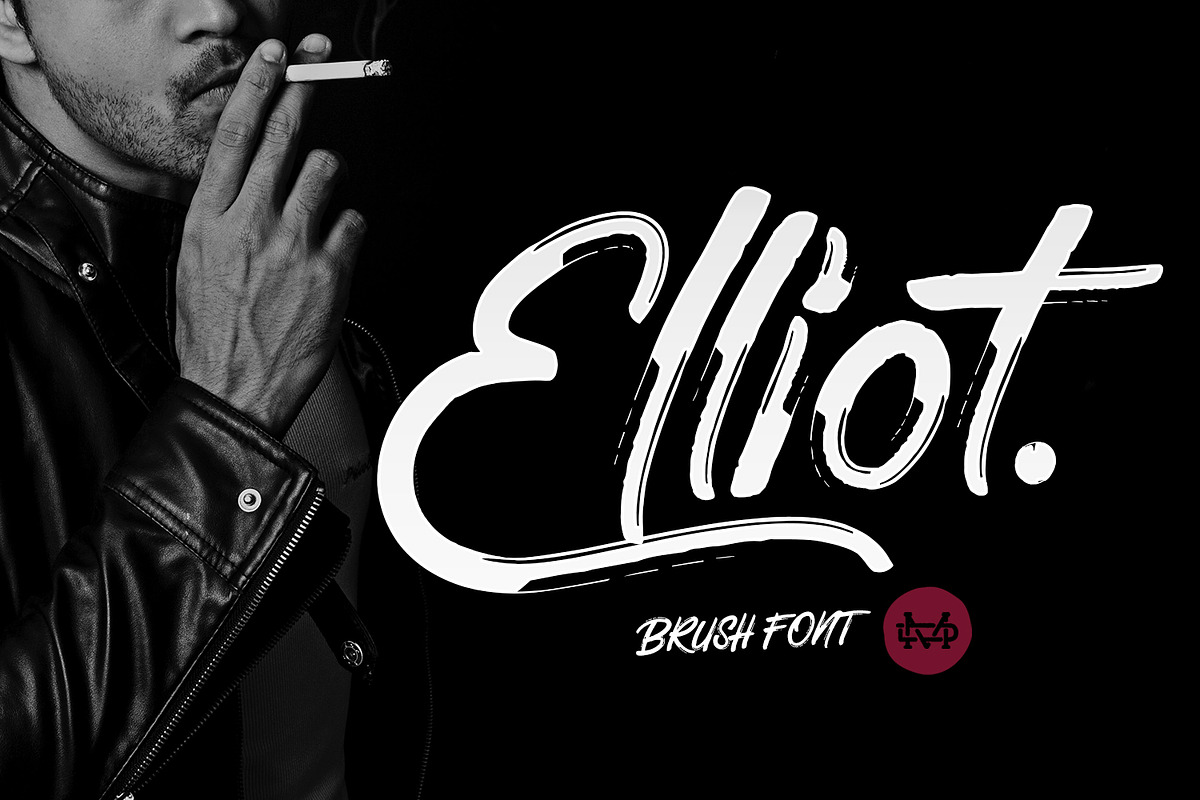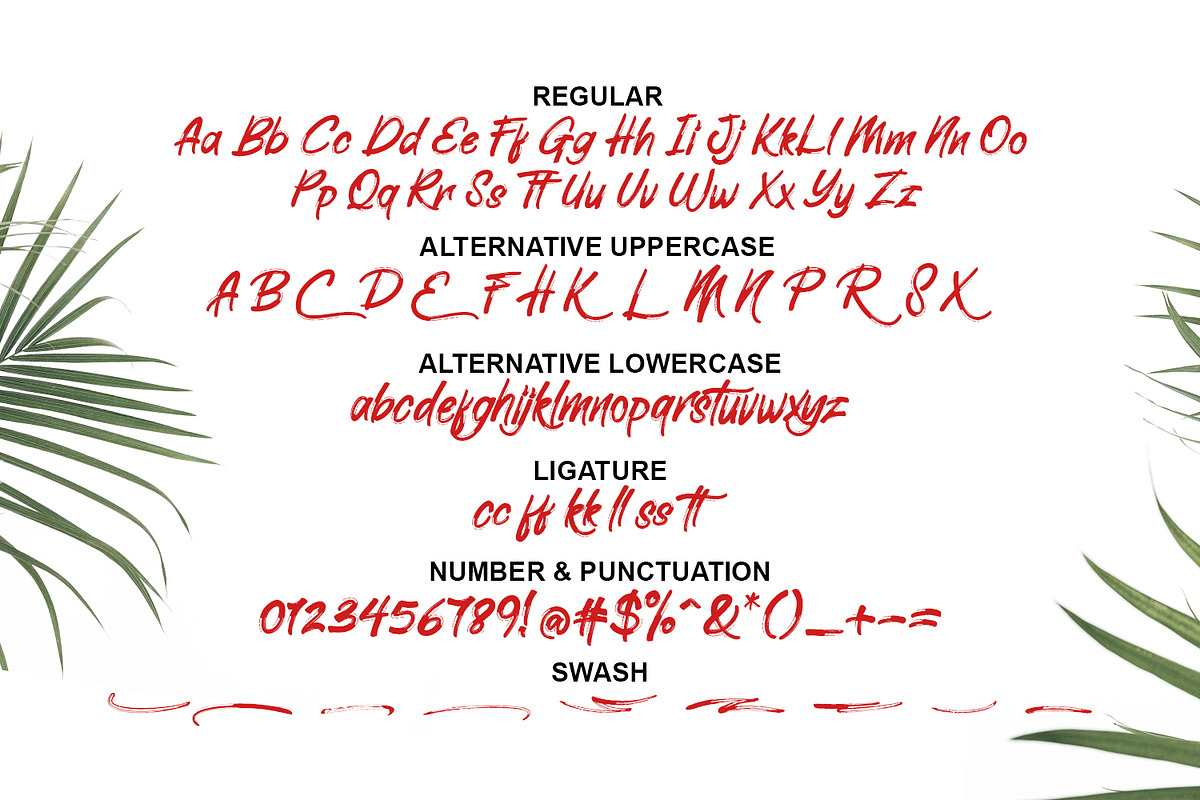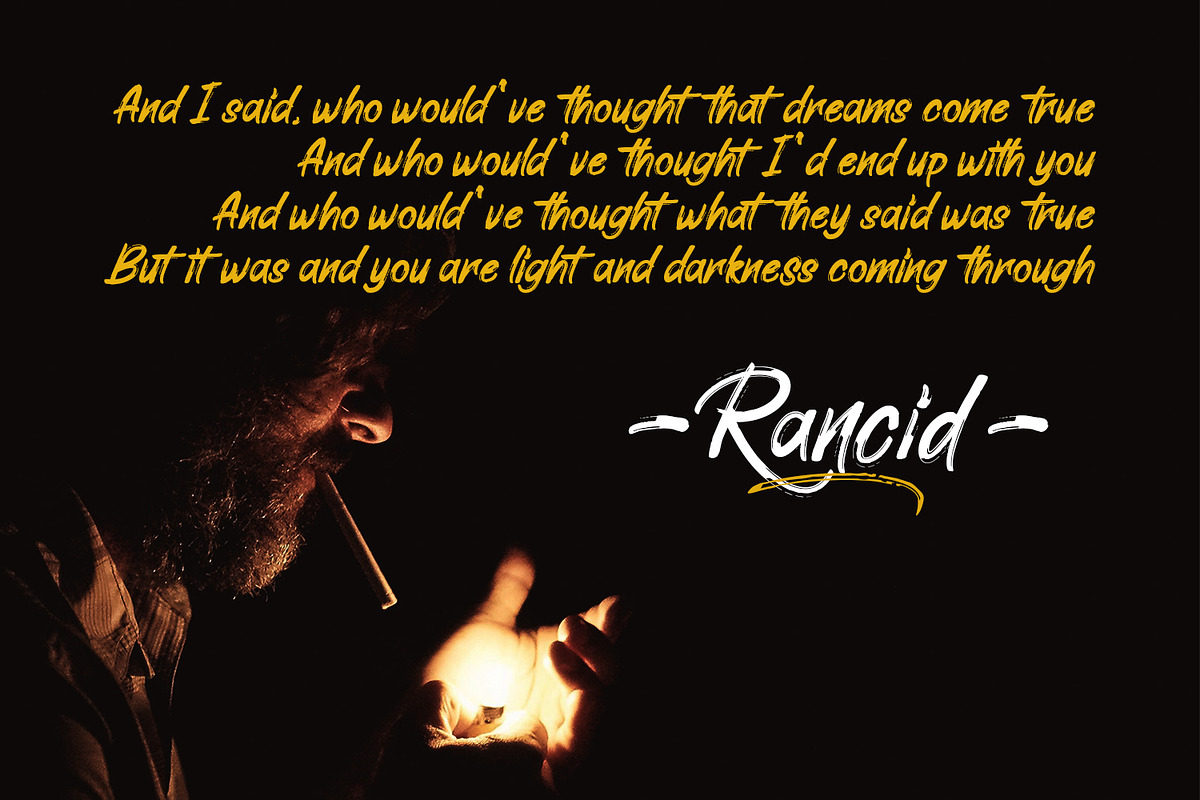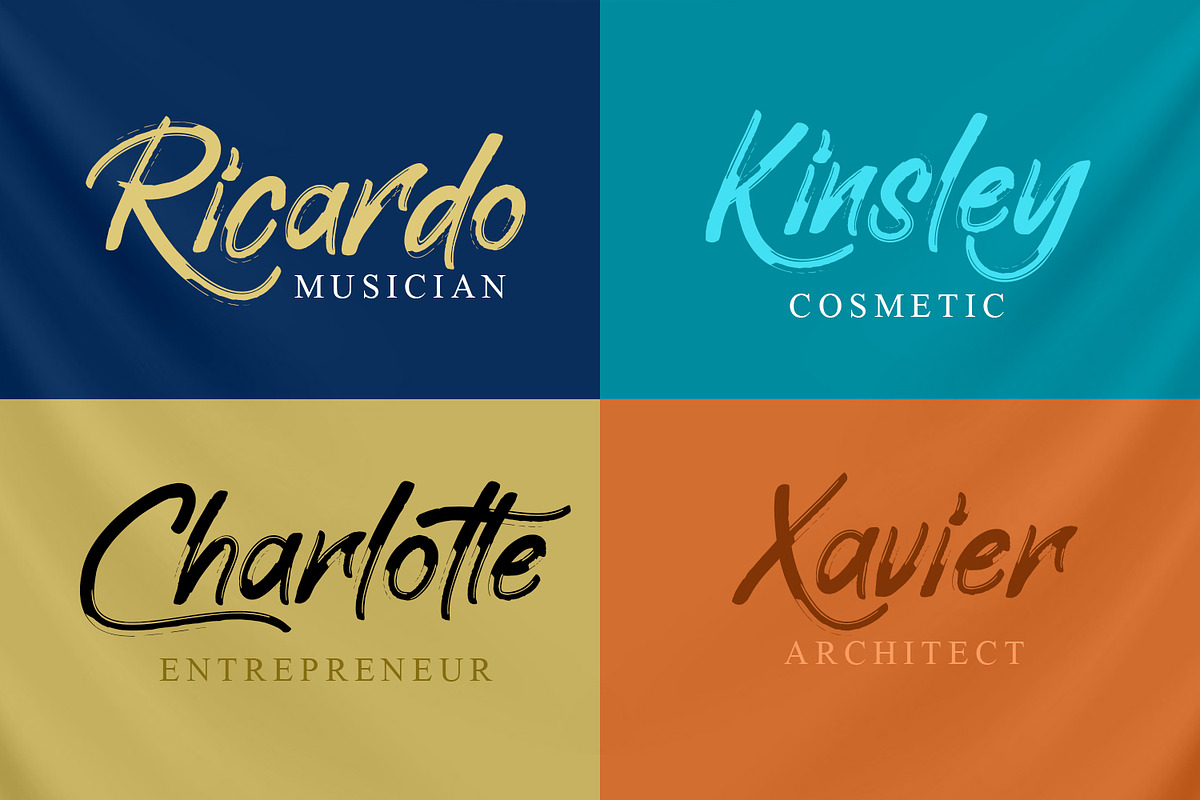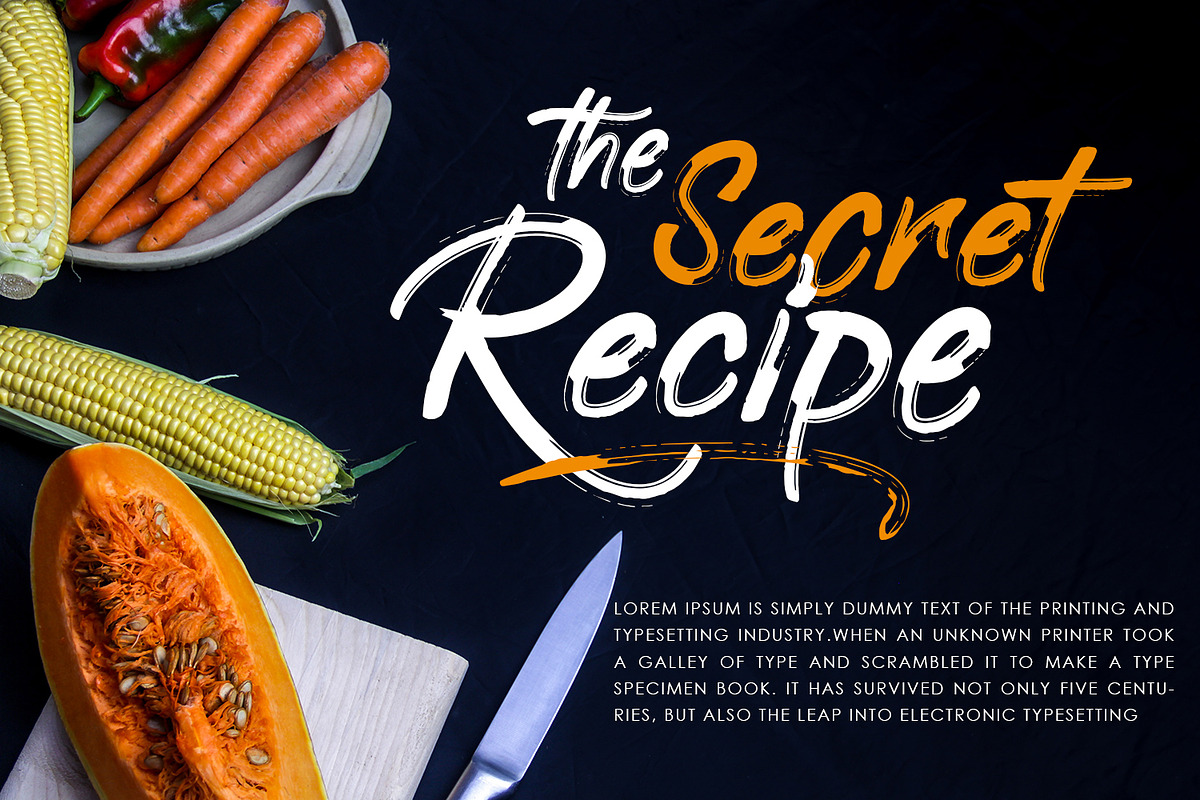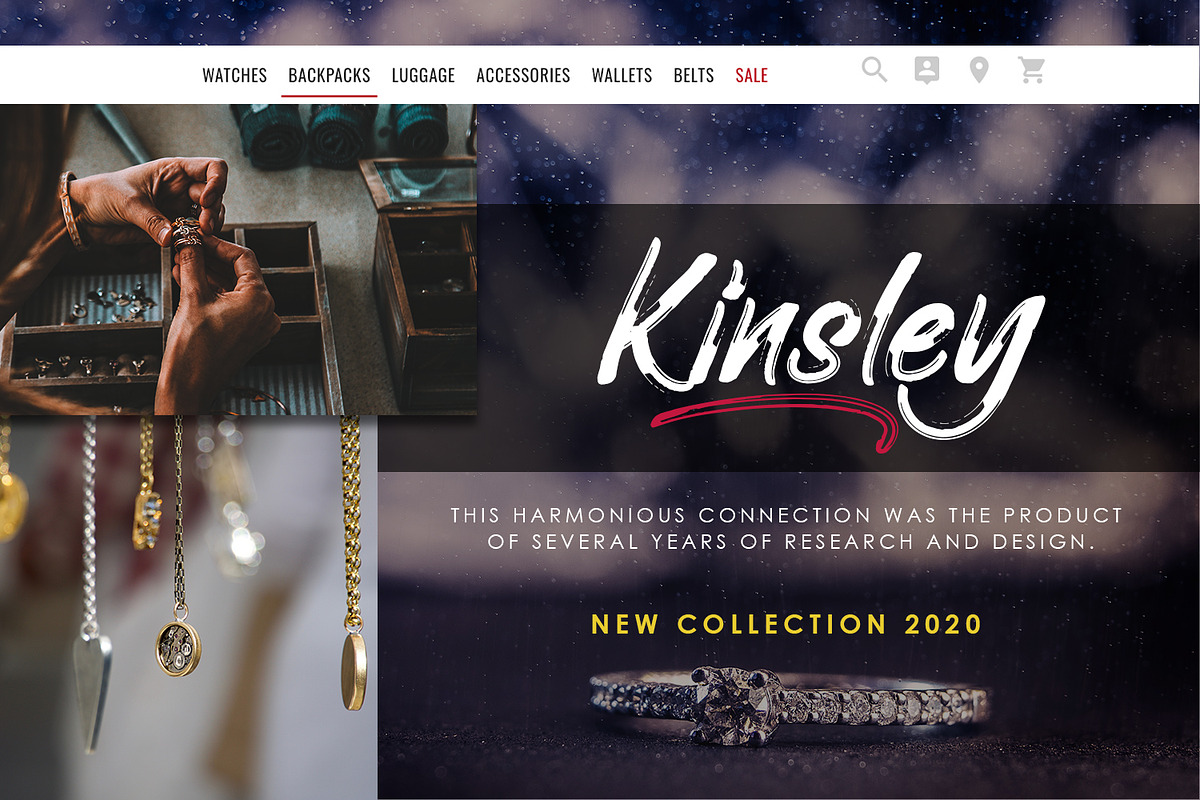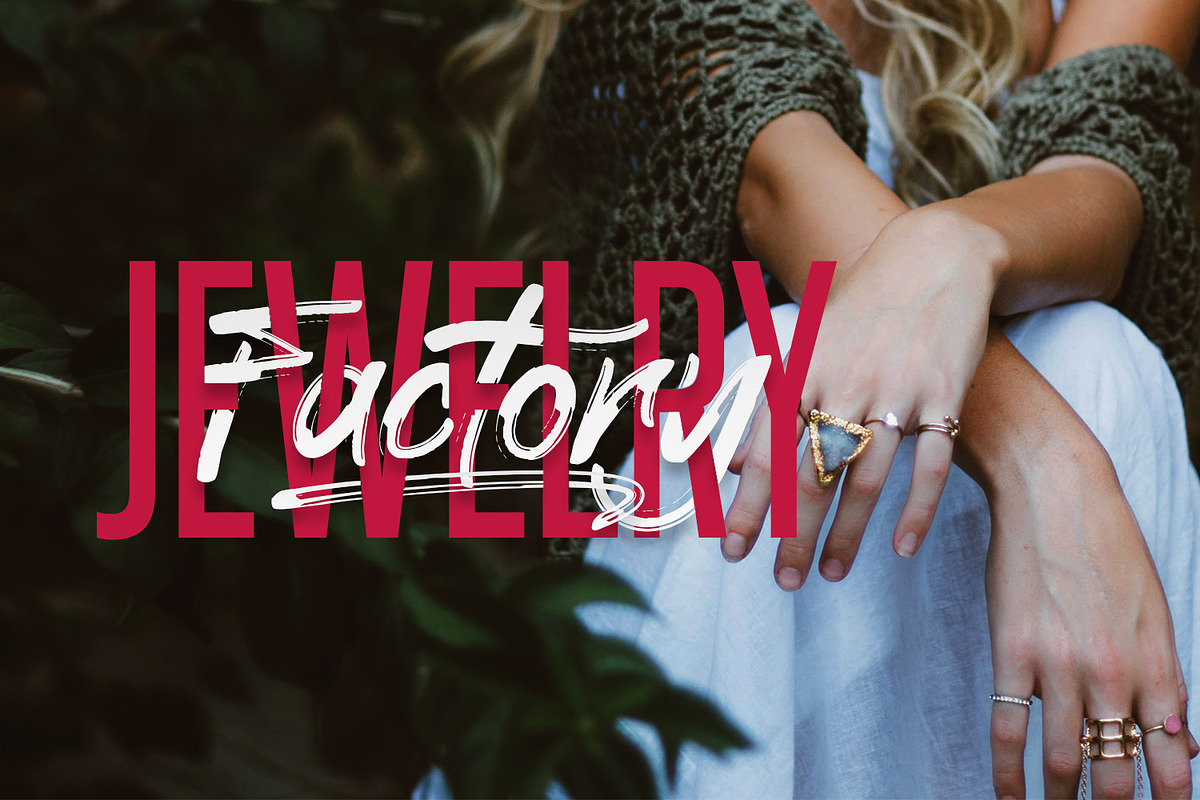
Elliot Brush Font
Elliot is a bold Brush font. This font perfect for poster design, book covers, merchandise, fashion campaigns, newsletters, branding, advertising, magazines, greeting cards, album covers, and quote designs and more.
Why Elliot Brush Font is worth a look
Elliot Brush Font by madeDeduk fits naturally into Branding, posters, packaging, typography.